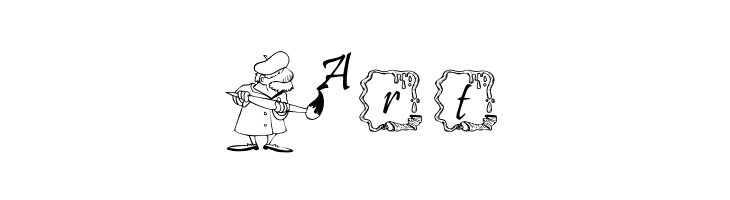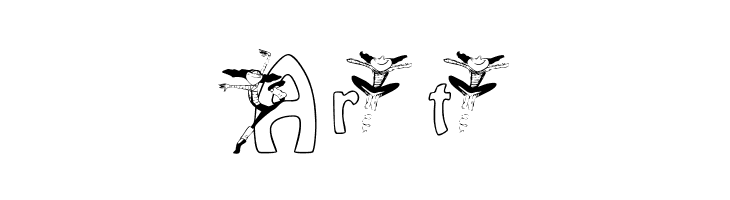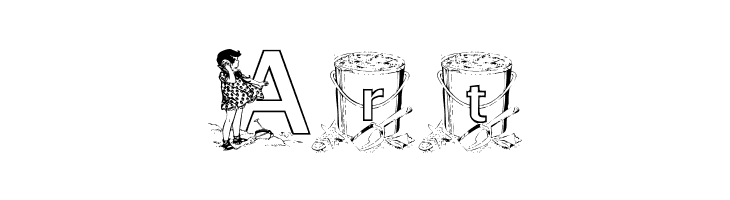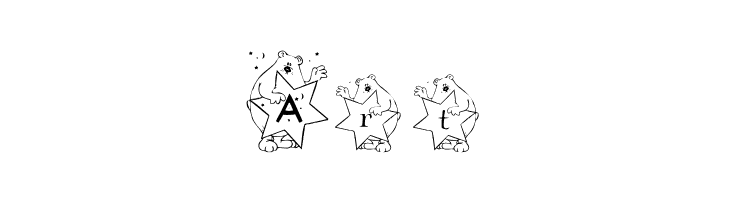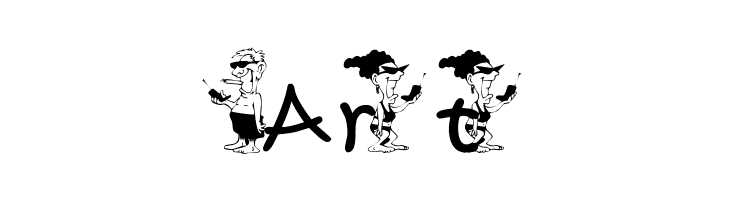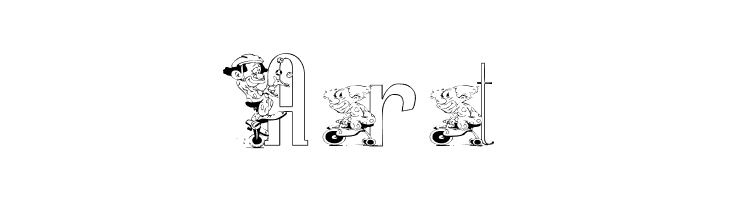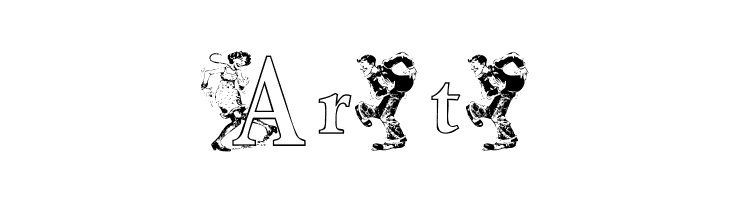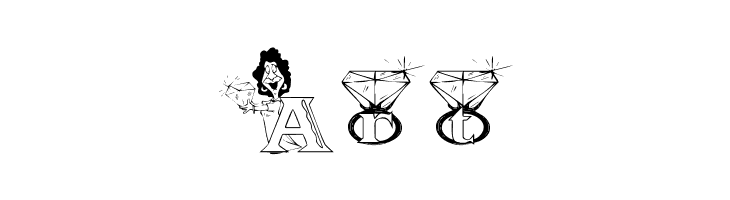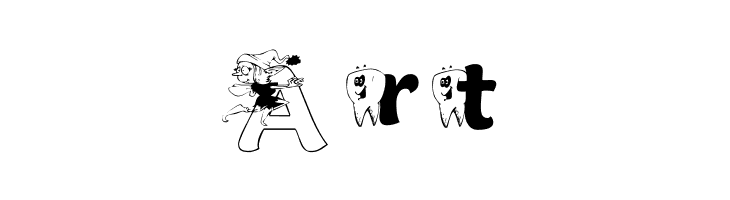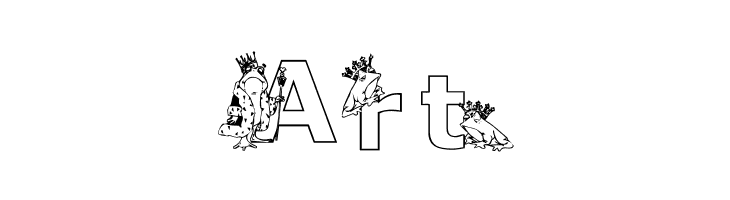
A whimsical and decorative font with cartoon figures and ornate frames.
A decorative font combining letters with ballet dancer illustrations.
A decorative font with beach-themed illustrations within each letter.
A whimsical font with characters enclosed in cartoonish bear shapes, perfect for playful designs.
A playful font with cartoon characters integrated into each letter.
A playful font with clown-themed characters, perfect for fun and lively designs.
A playful font with dancing figures integrated into each letter.
A decorative font with diamond motifs, offering a luxurious and elegant style.
A whimsical font with fairy characters adorning each letter, combining outlined uppercase with bold lowercase styles.
A whimsical font with crowned frog illustrations integrated into outlined letters.